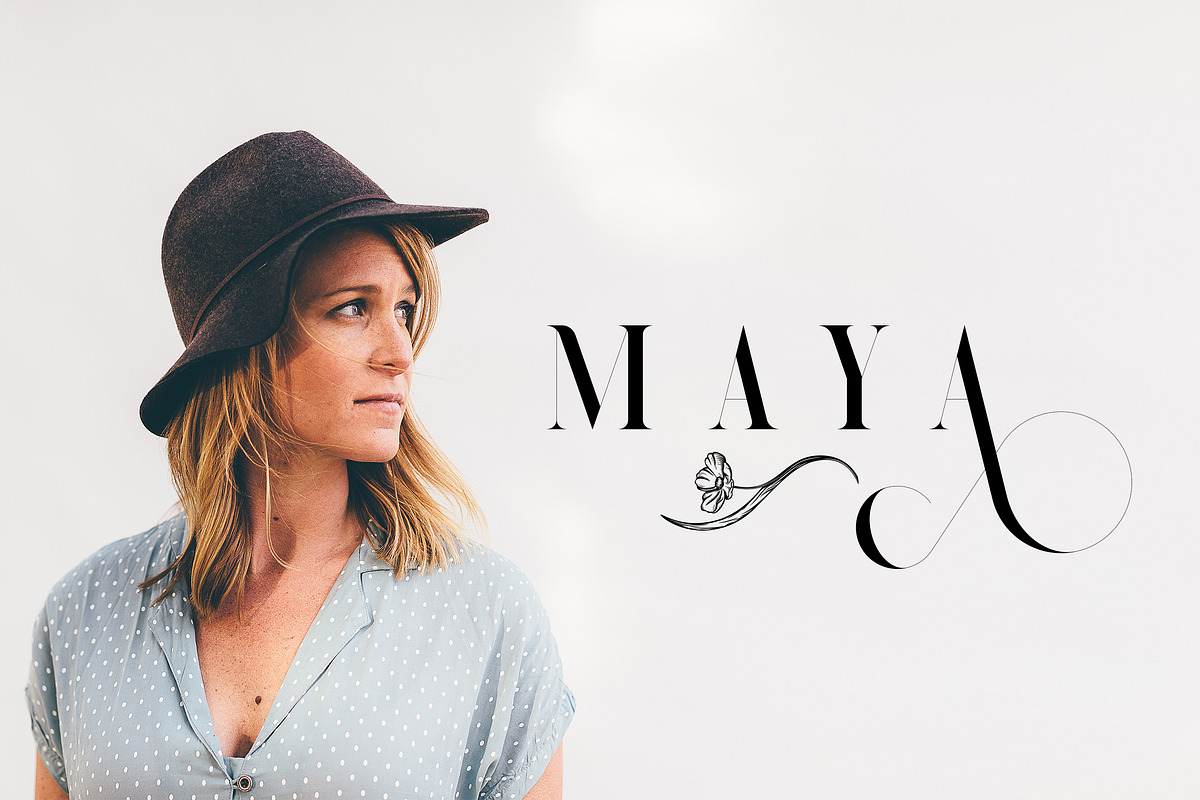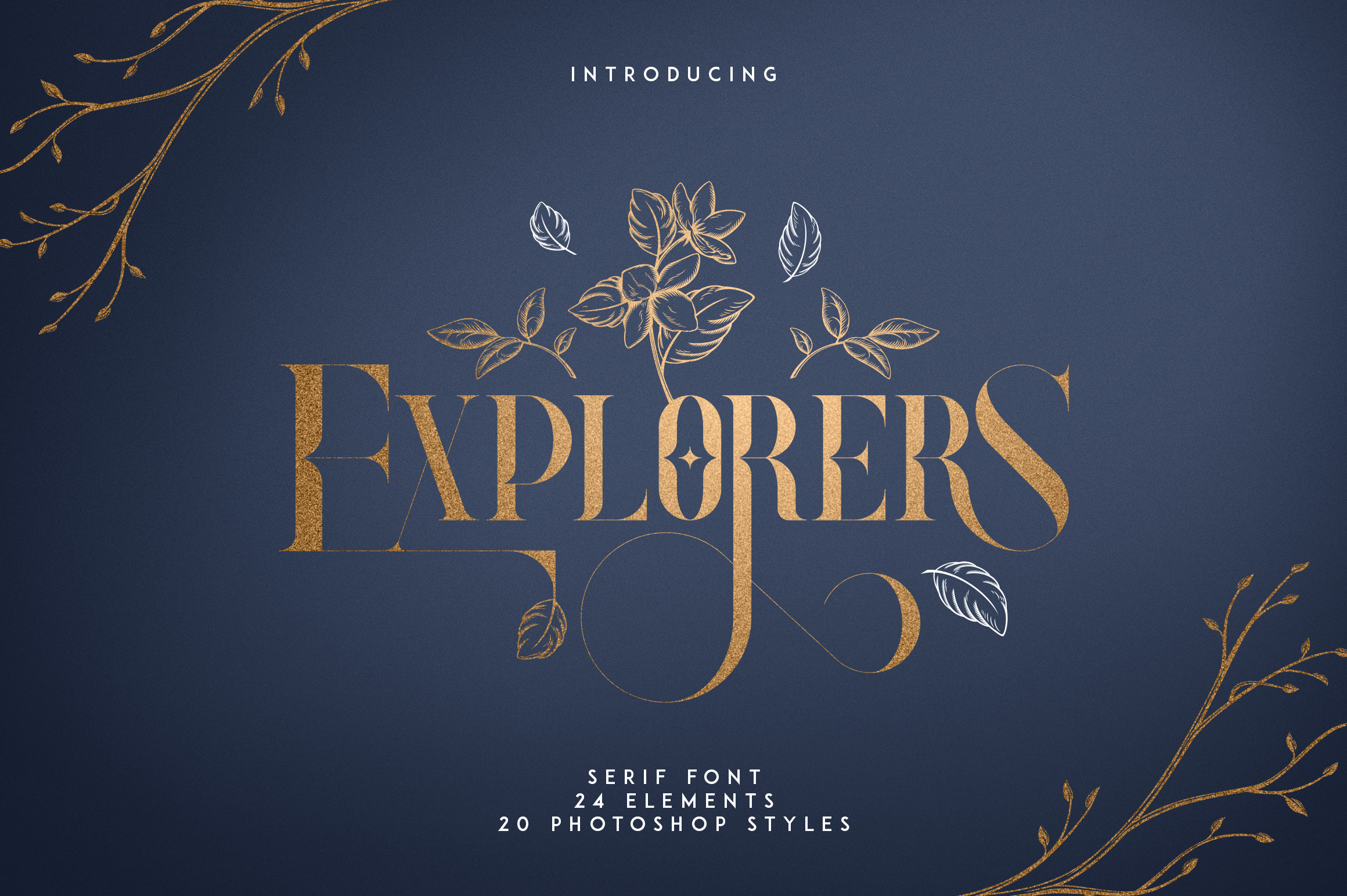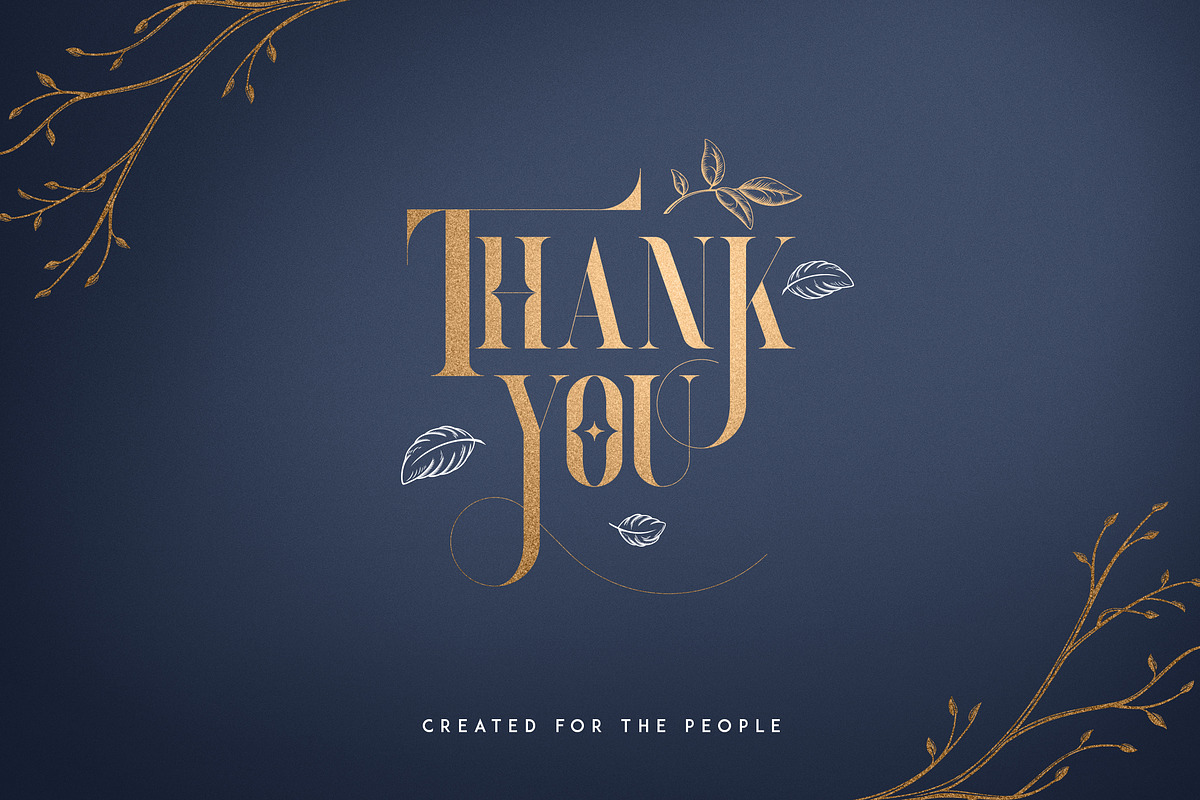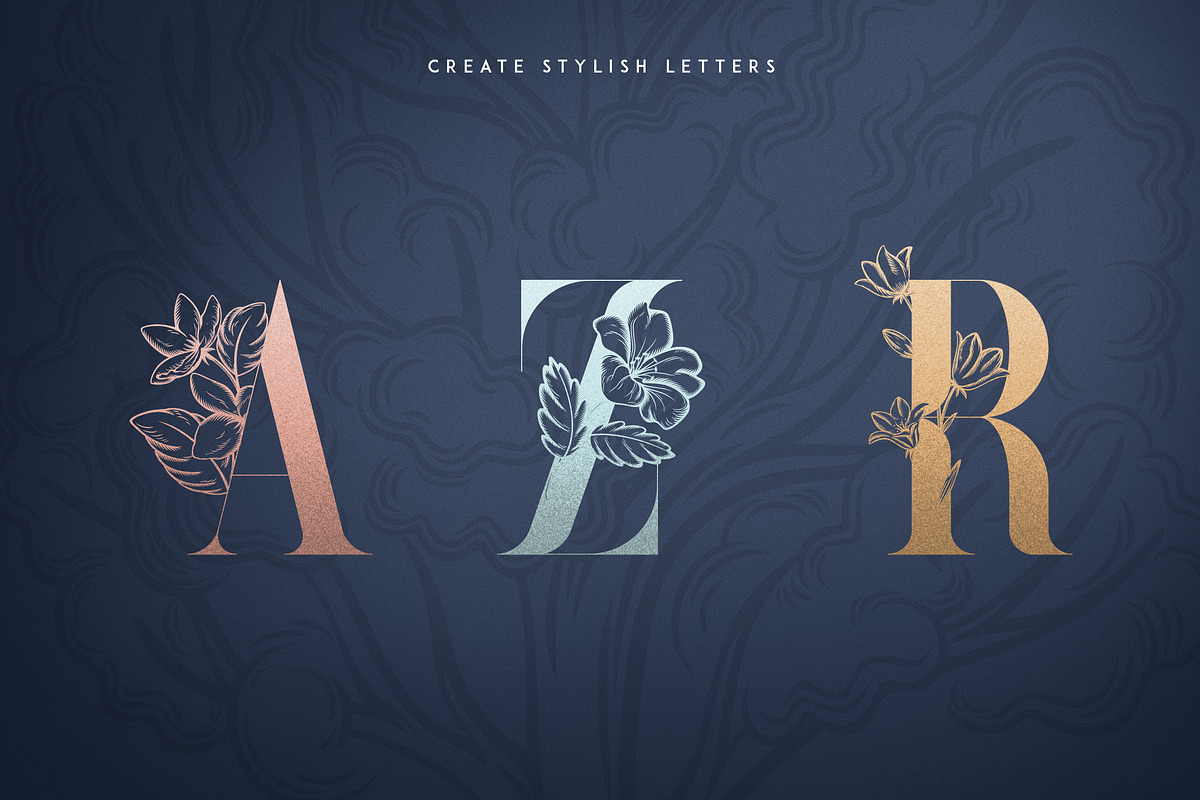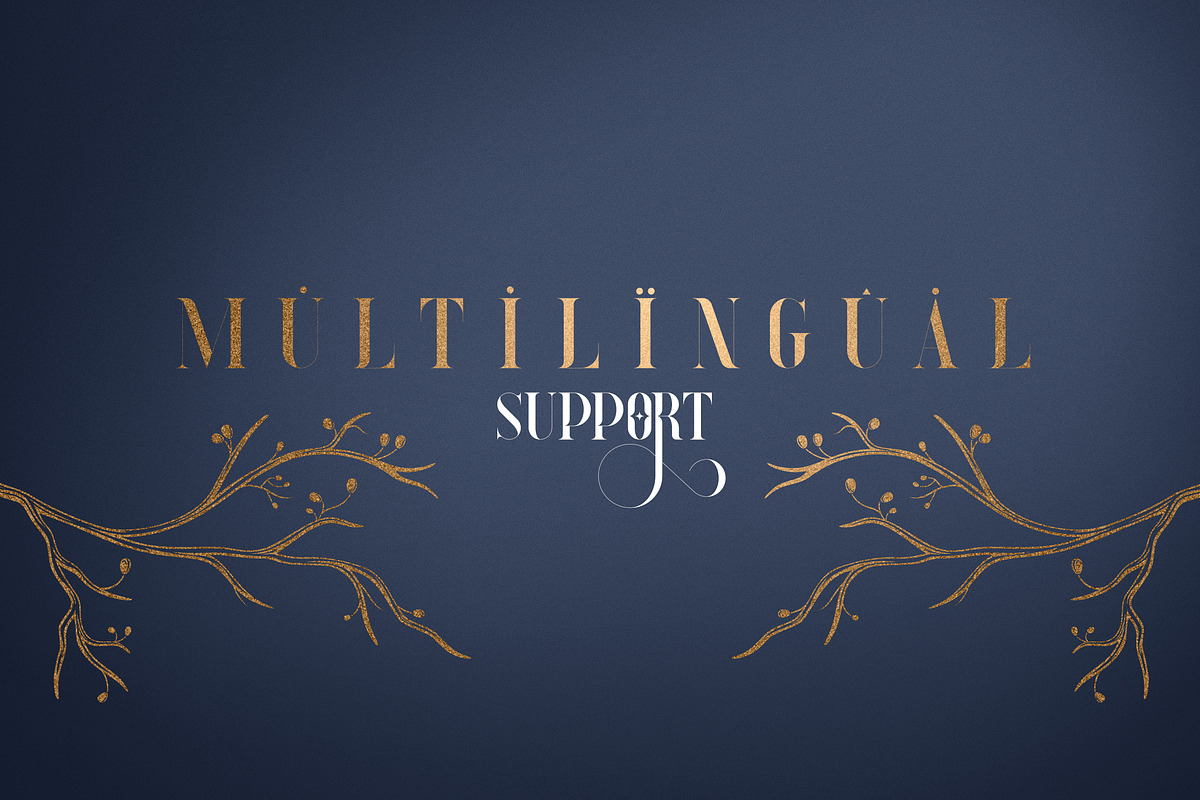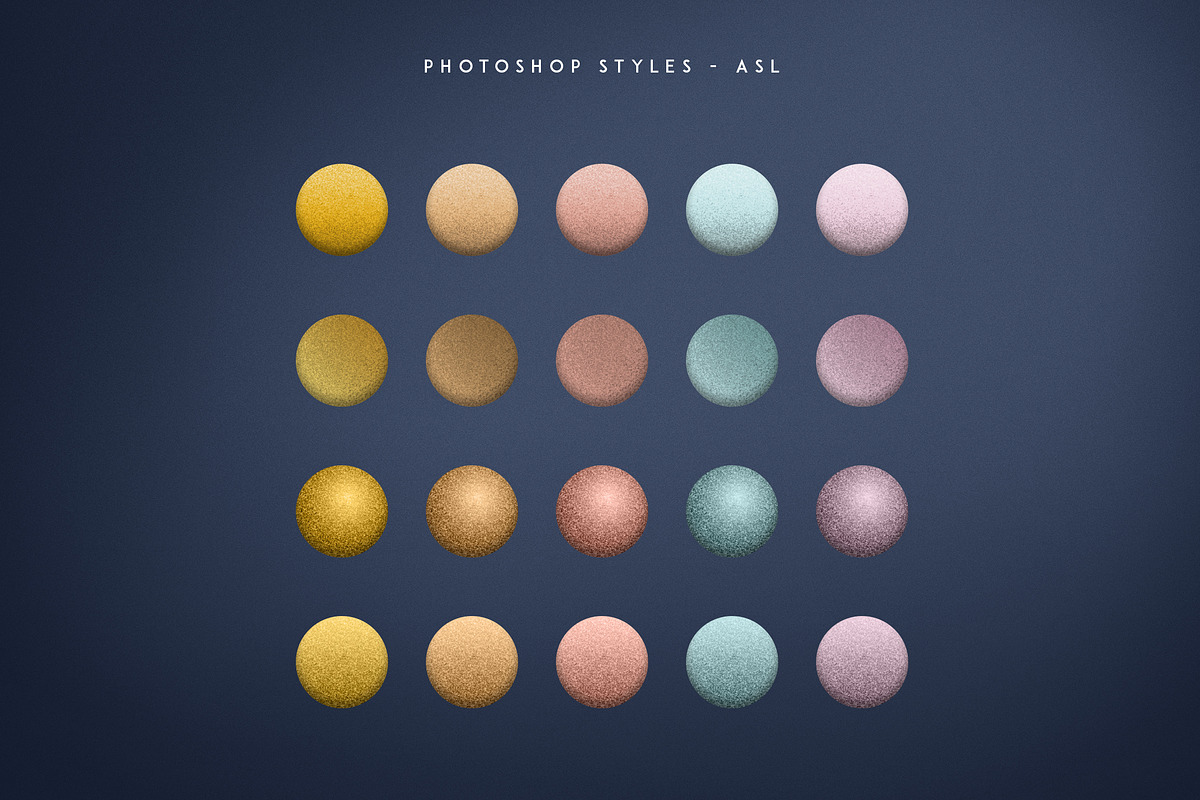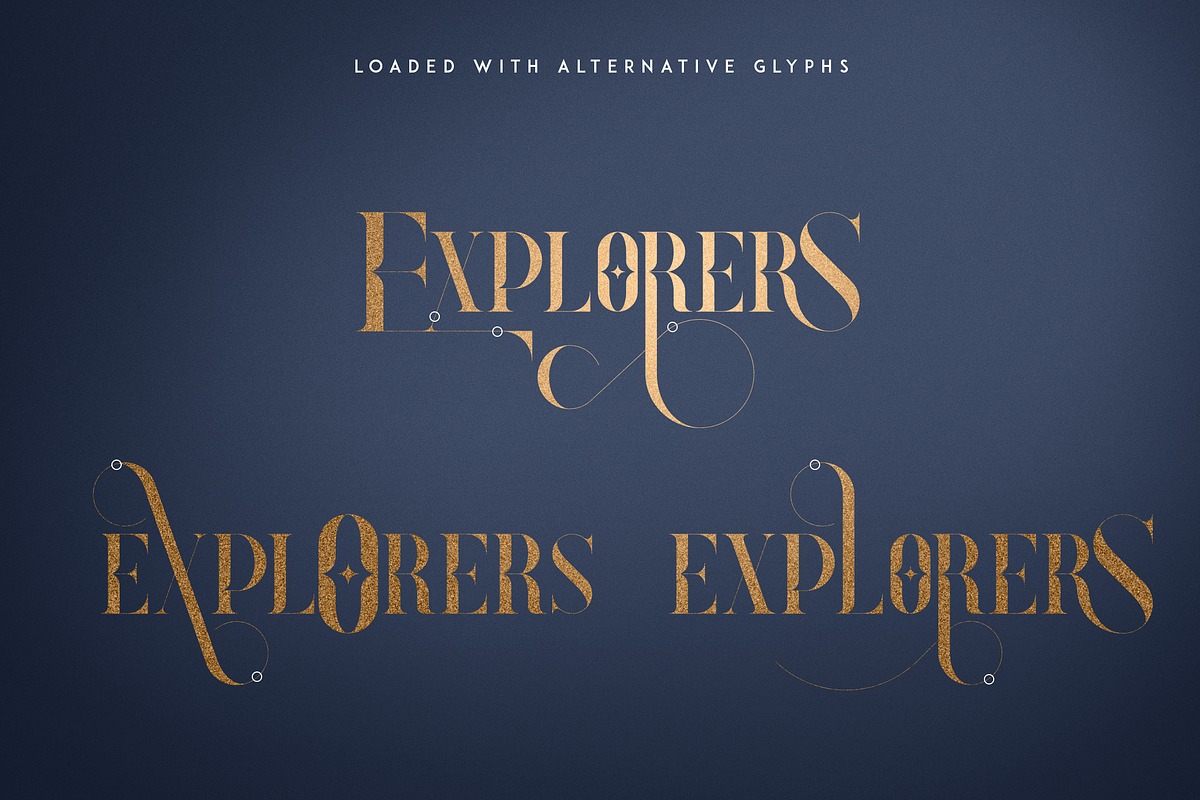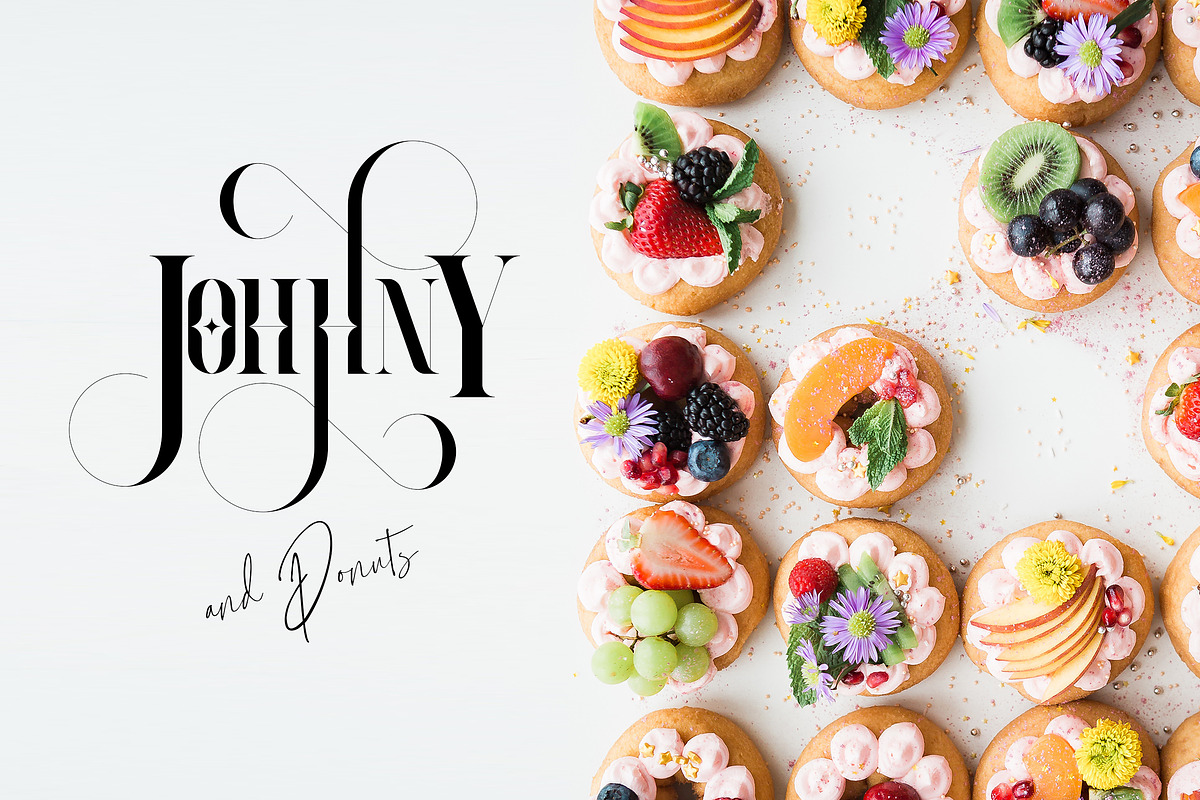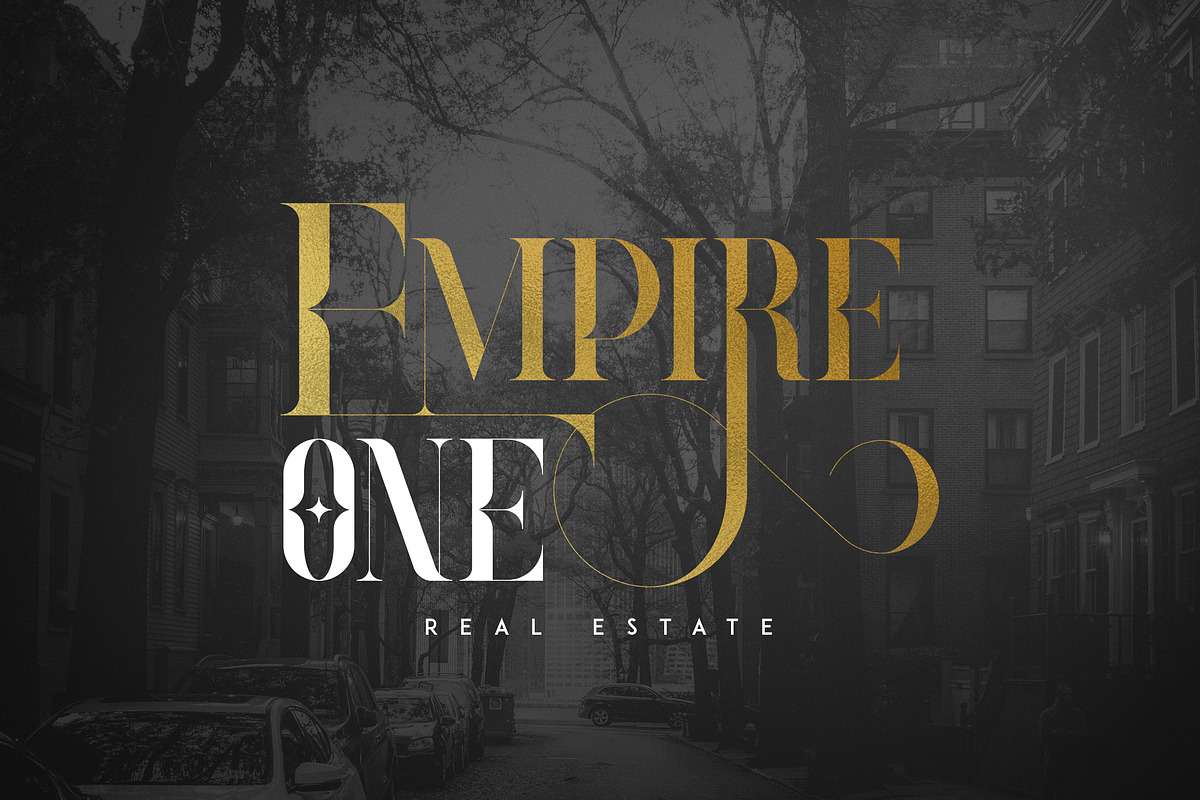
Explorers is sophisticated font with tons of alternative glyphs, ligatures, elements, photoshop styles and multilingual support. It's a very versatile font that works great in large and small sizes.
Explorers is perfect for branding projects, home-ware designs, product packaging, magazine headers - or simply as a stylish text overlay to any background image.
Explorers serif font with tons of alternative glyphs, ligatures and multilingual support